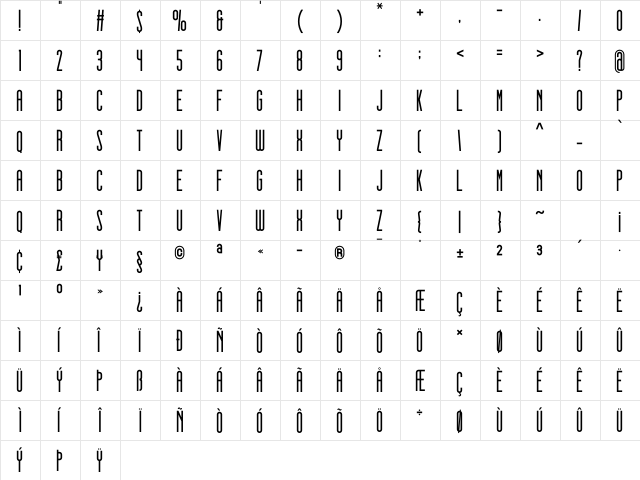
gello regular Regular Font Preview
gello regular Regular
gello regular Regular Font Details
Design Context for gello regular Typeface
gello regular offers clean, dependable letterforms without strong stylistic allegiance, making it a practical choice for designers who need flexibility.